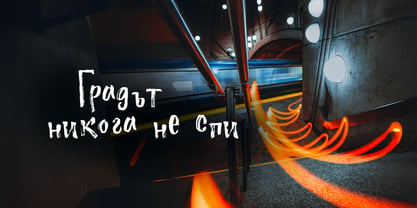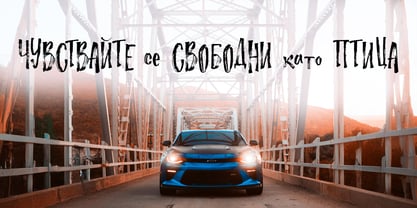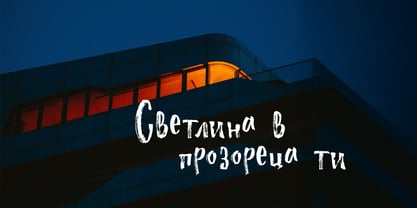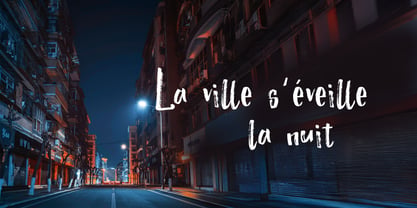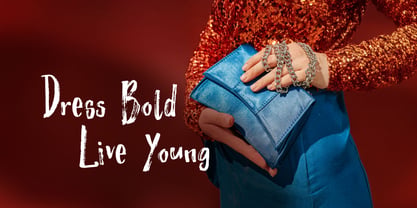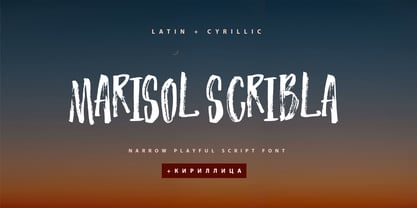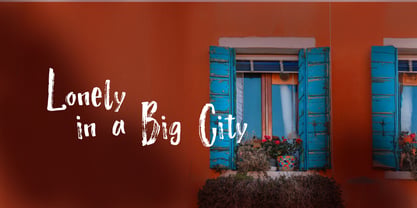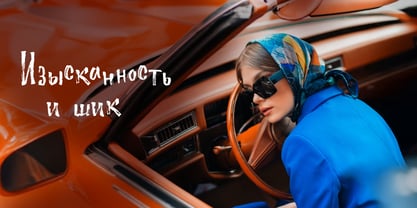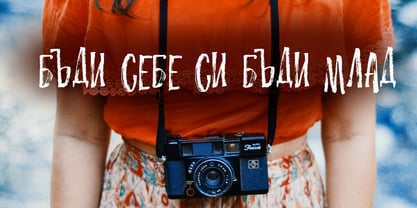
Marisol Scribla Cyrillic
by Ira Dvilyuk
The Marisol Scribla Cyrillic Font Family was designed by Iryna Dviliuk and published by Ira Dvilyuk. Marisol Scribla Cyrillic contains 1 styles. More about this family
Marisol Scribla Cyrillic Textured Script font was handwritten with a dry brush and will look great on branding design, posters, apparel, logotype, website header, fashion design, wedding card design, and more.
Marisol Scribla textured script font contains a full set of uppercase and lowercase letters and 9 ligatures - which can be used to create a handwritten calligraphy look.
The Cyrillic part of the font contains the uppercase letters lowercase letters and 7 ligatures, giving a realistic hand-lettered style.
Multilingual Support for 32 languages: Latin glyphs for Afrikaans, Albanian, Basque, Bosnian, Catalan, Danish, Dutch, English, Estonian, Faroese, Filipino, Finnish, French, Galician, Indonesian, Irish, Italian, Malay, Norwegian Bokmål, Portuguese, Slovenian, Spanish, Swahili, Swedish, Turkish, Welsh, Zulu. And Cyrillic glyphs support Russian, Belorussian, Bulgarian, Ukrainian, and Kazakh languages.